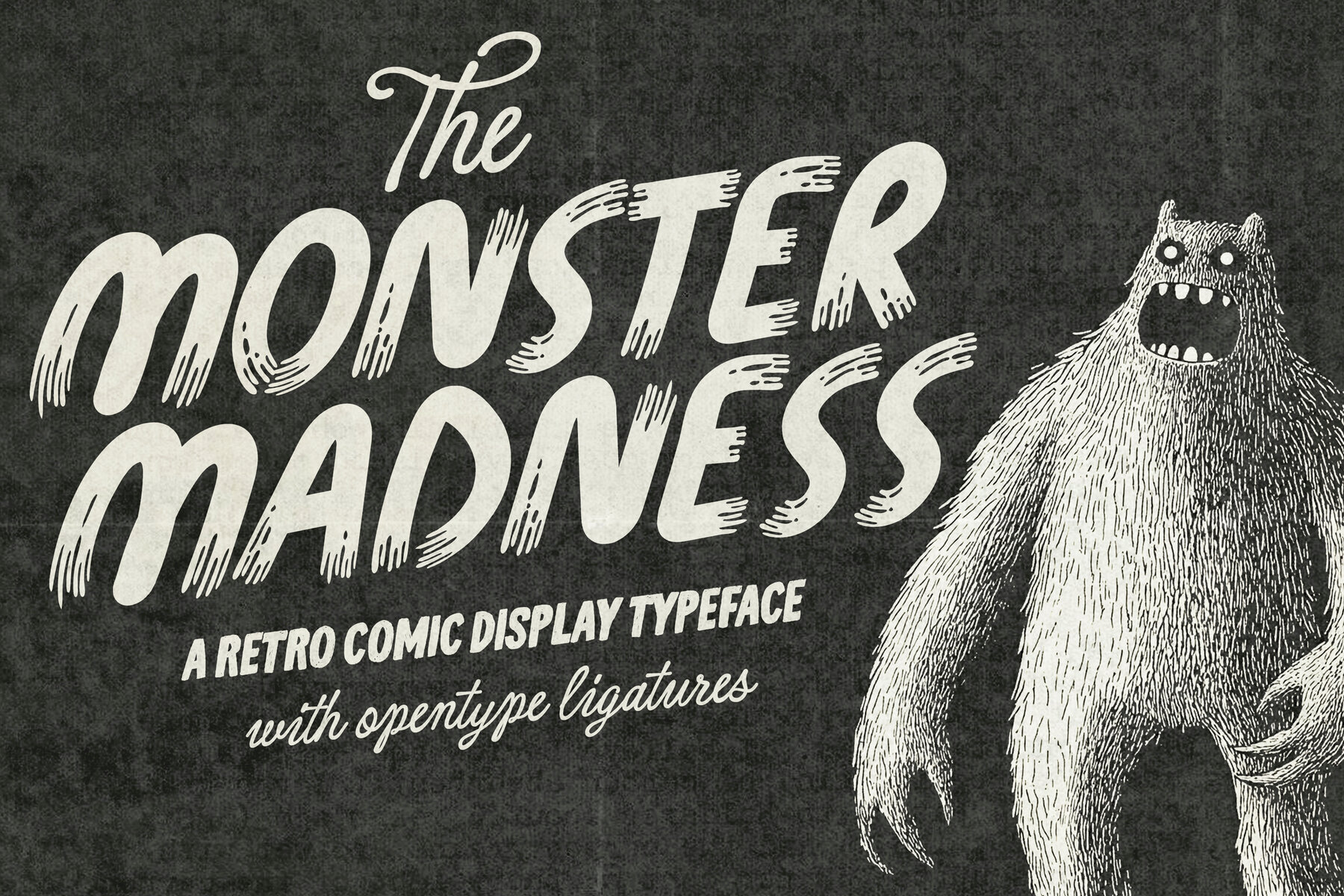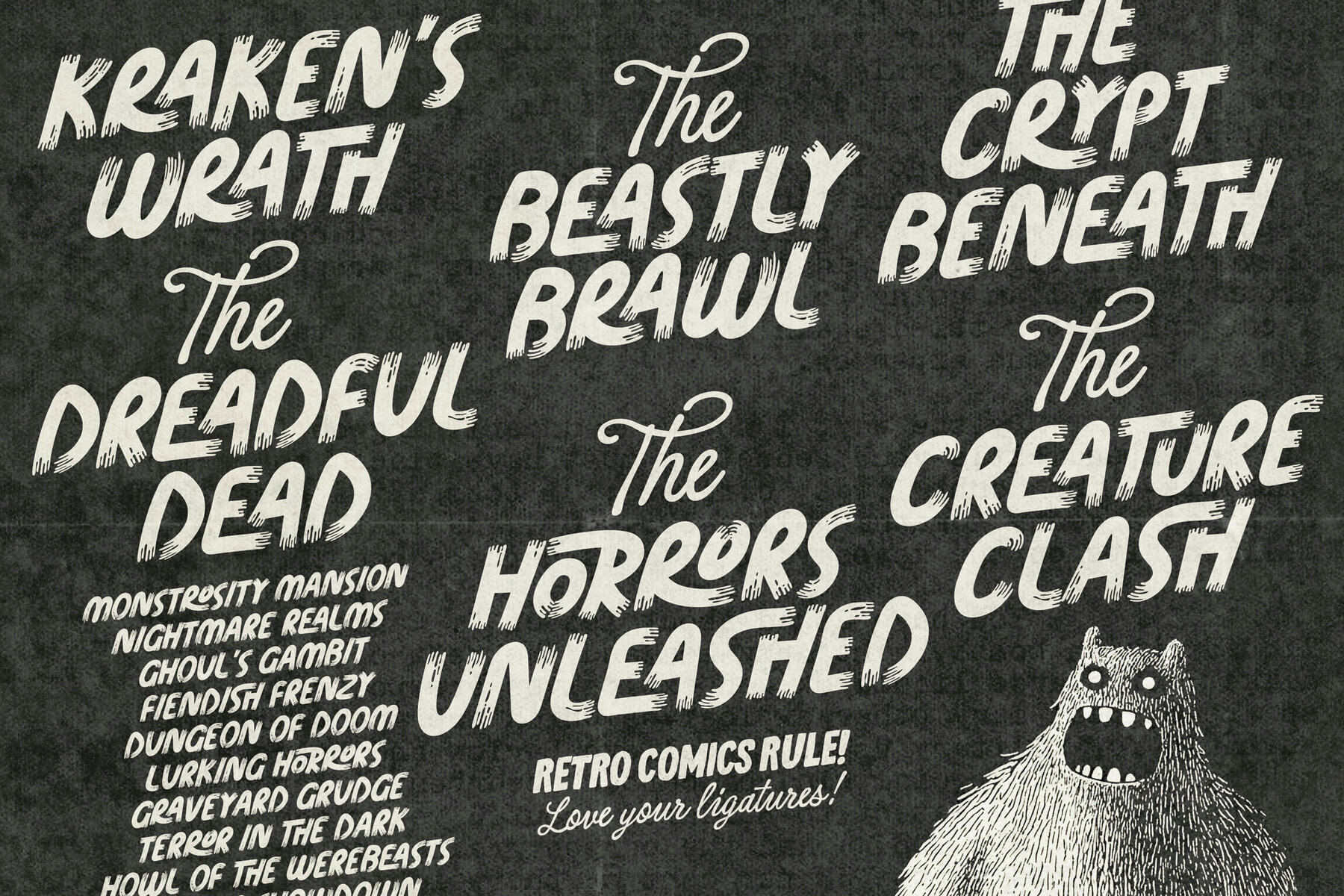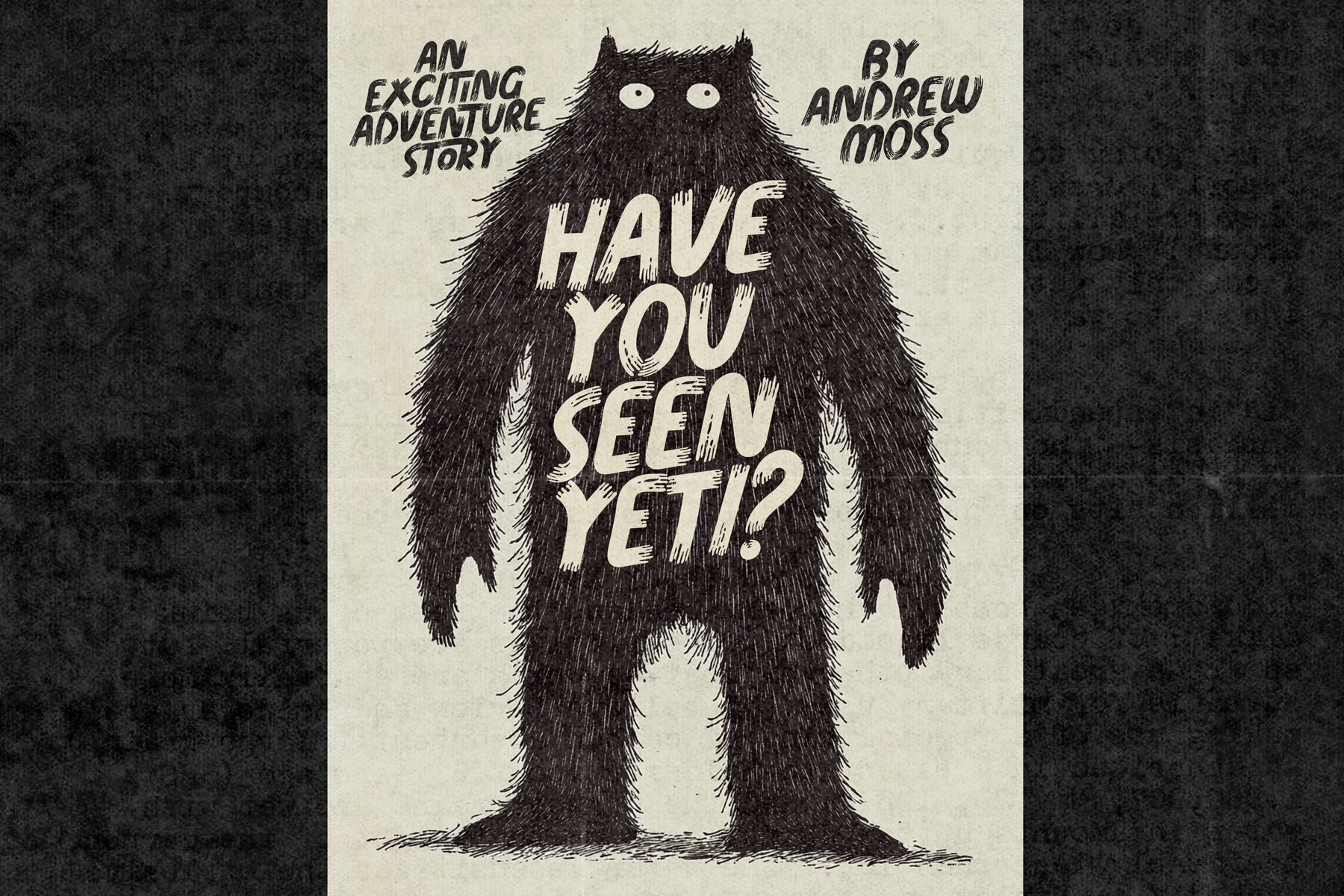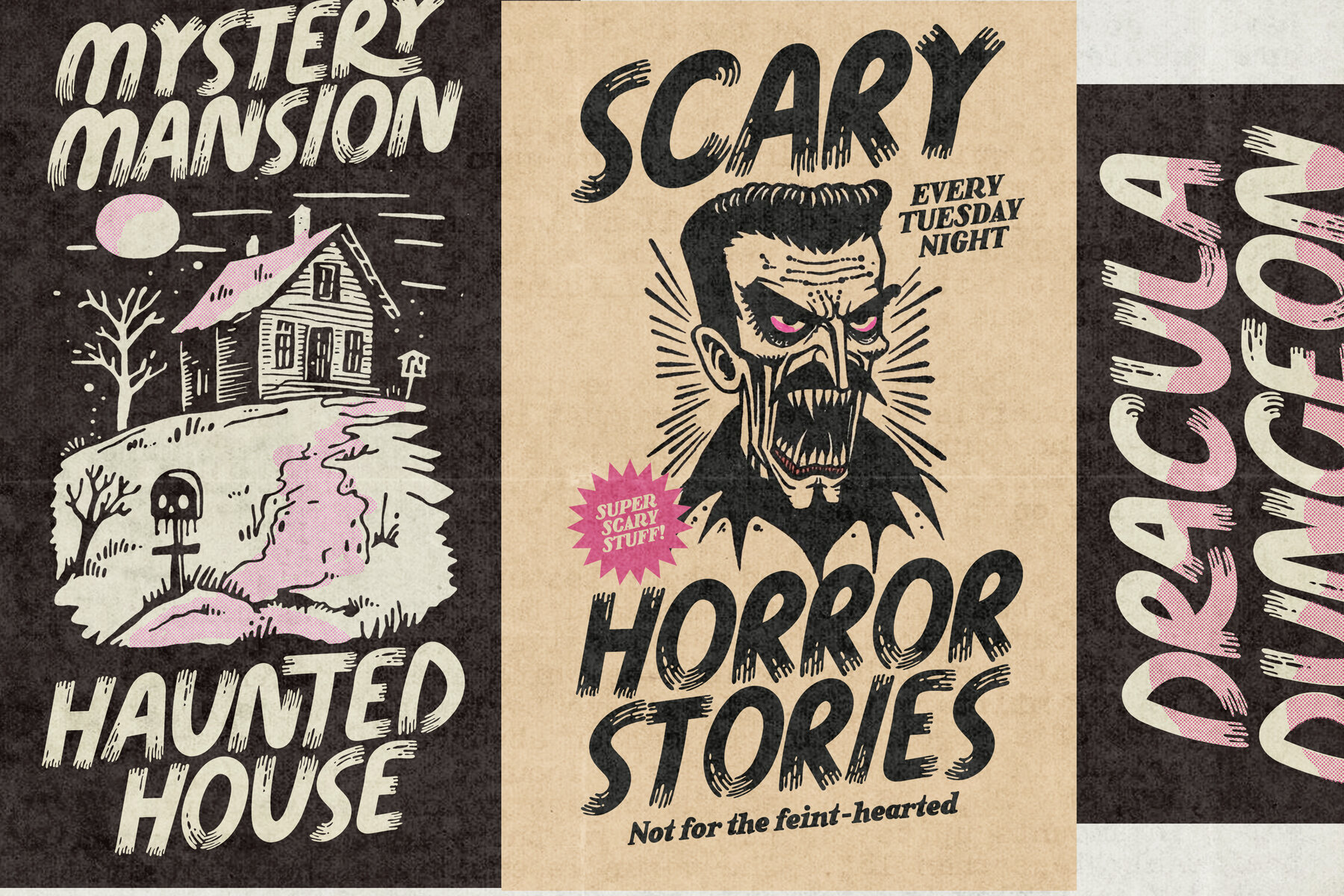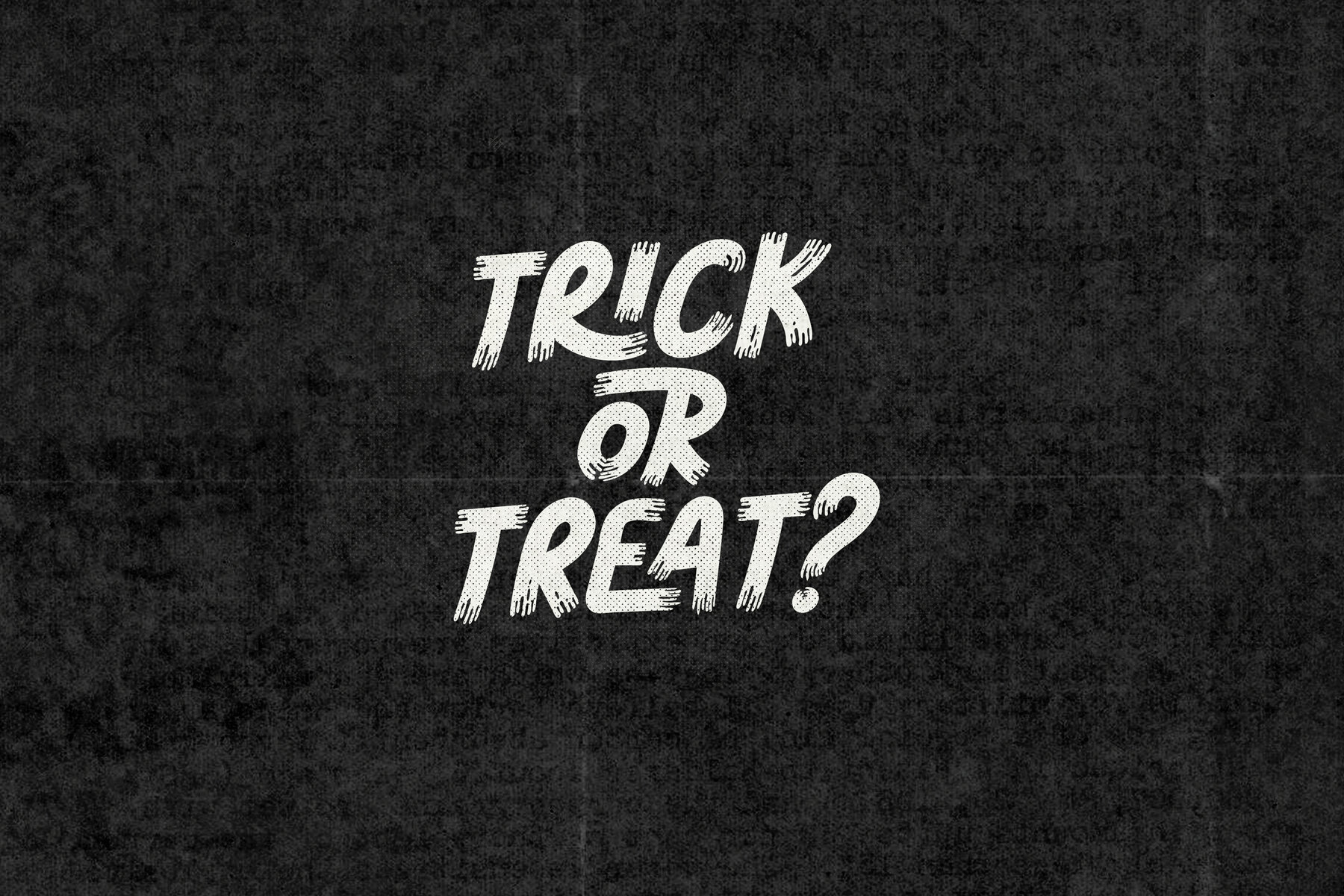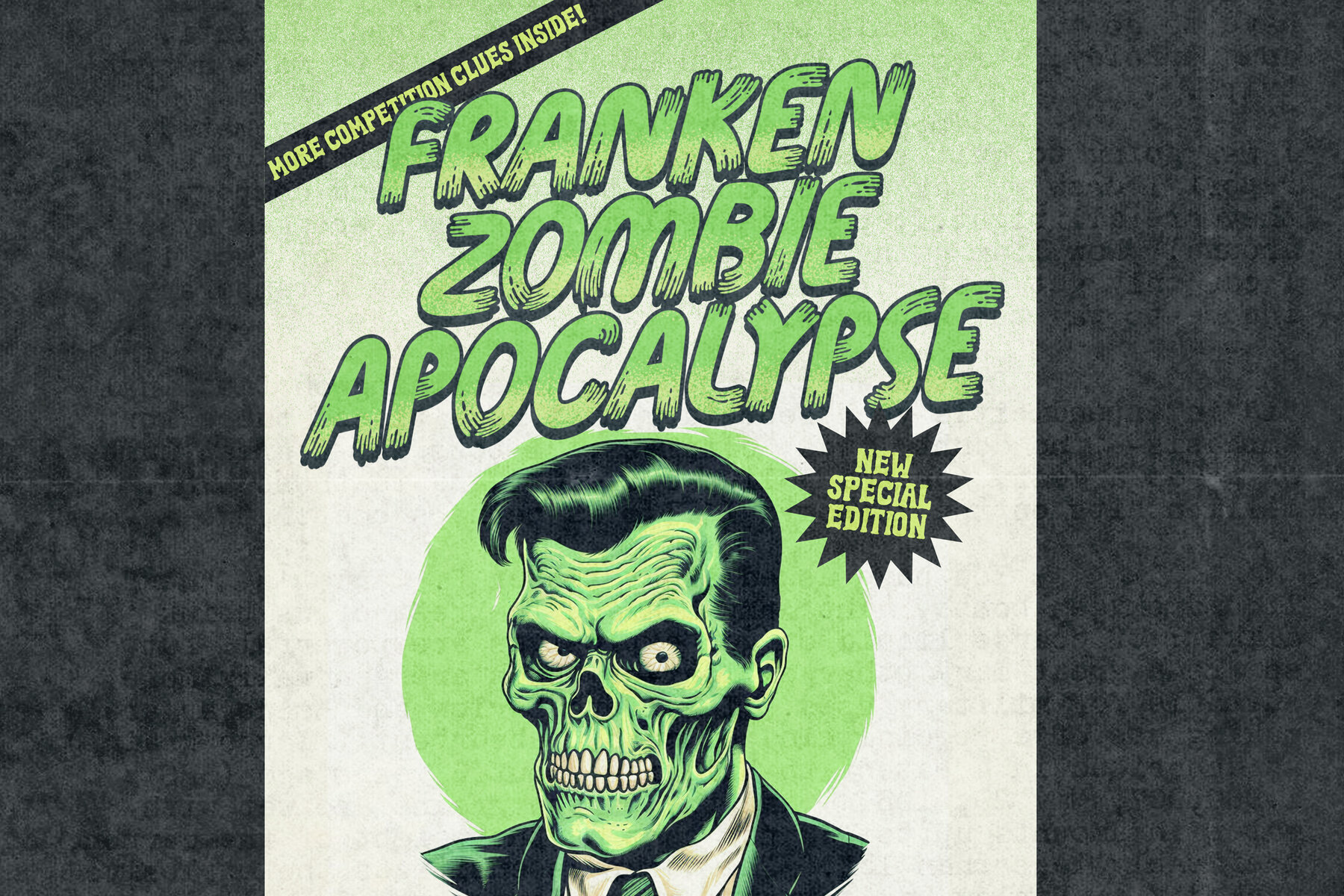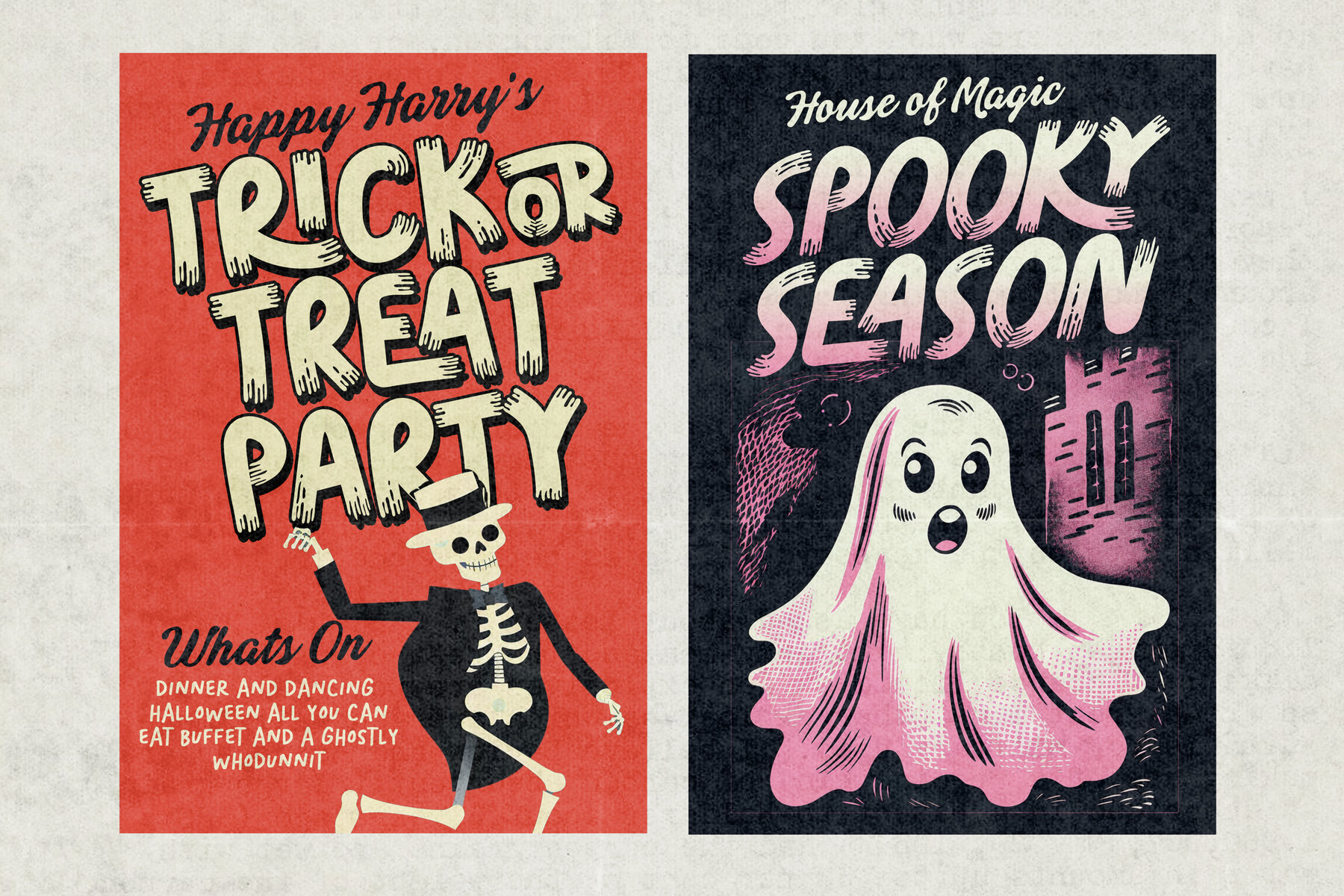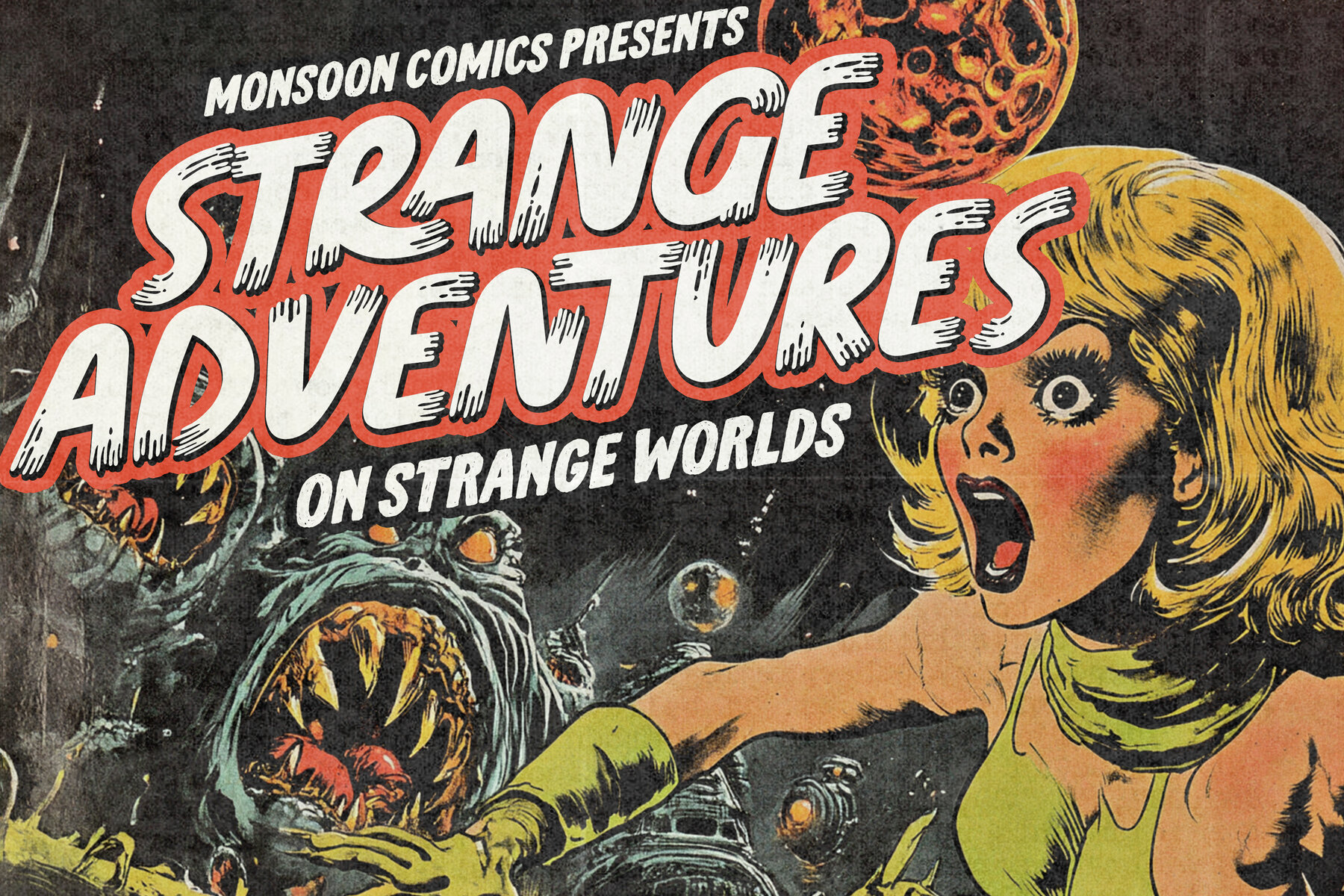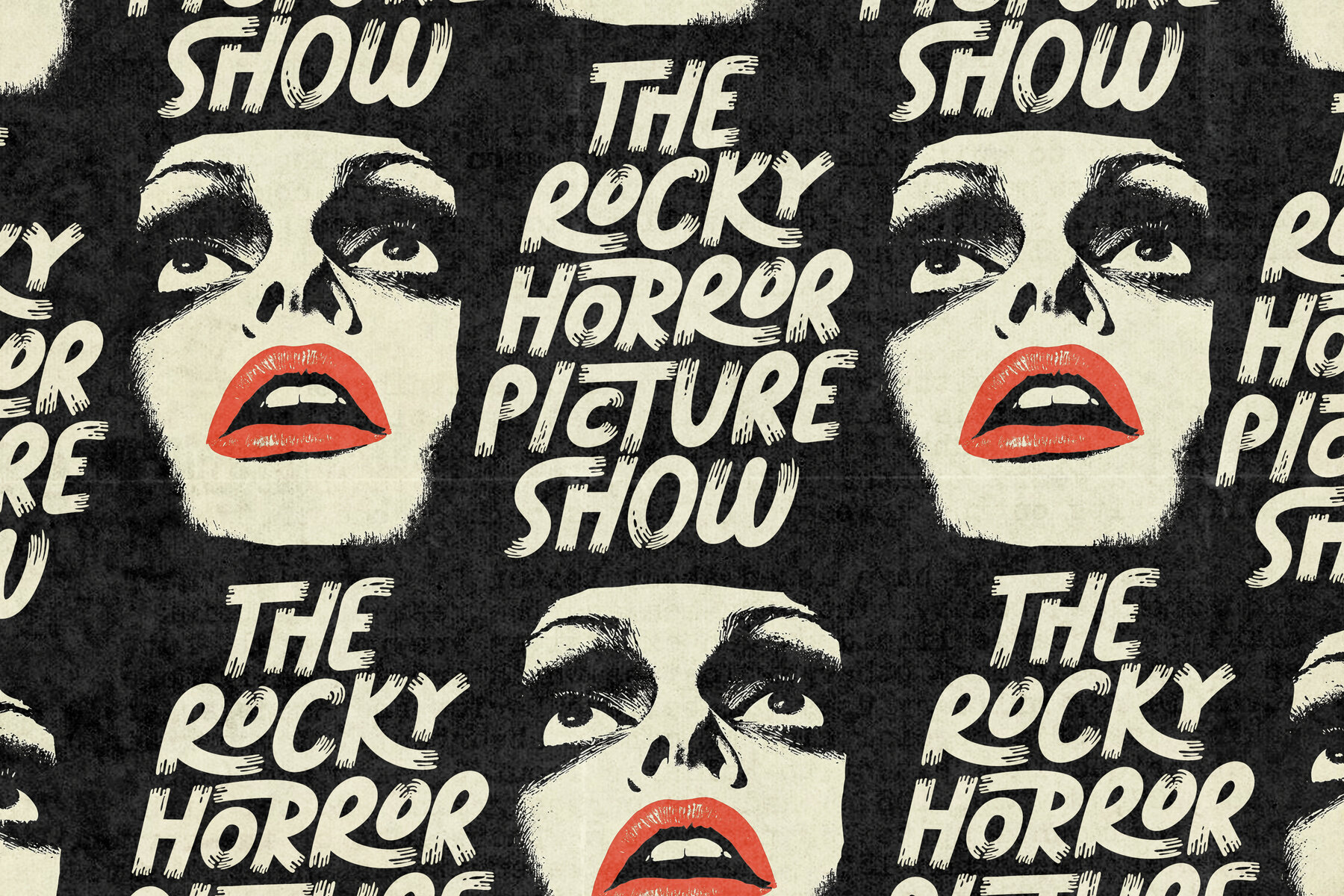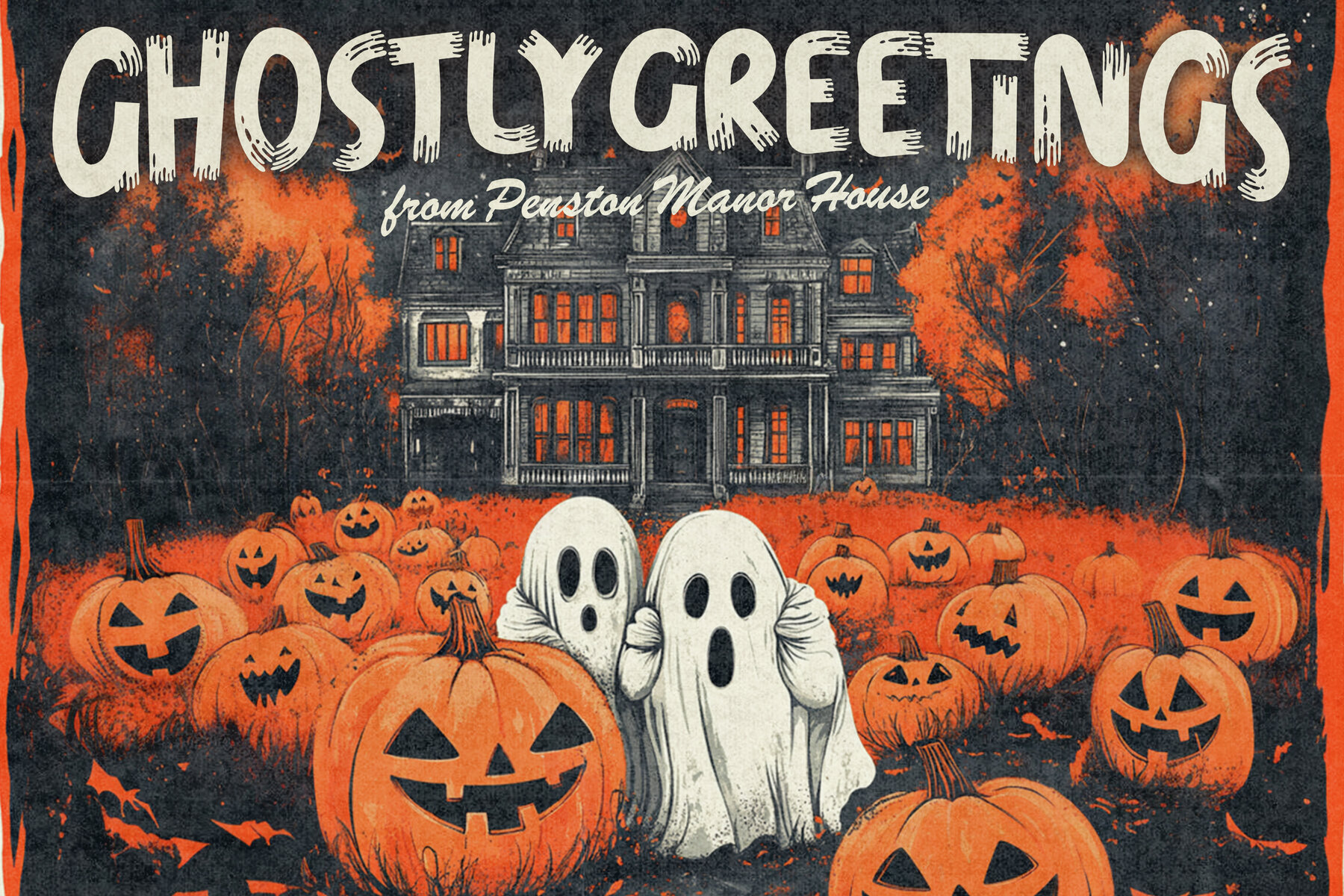
Monster Madness Font
Time for a little fun heading up to spooky season! Say hello to Monster Madness! A playful retro themed comic book style typeface. Don't forget to turn on your Opentype ligatures to get even more awesomeness as you type! Monster Madness comes in three style variants - Upright, Regular and Oblique and is PUA encoded for folks without any fancy Opentype capapble software (you can access the ligatures by copying and pasting them from Fontbook or Charmap) Language support : Cornish, Corsican, Danish, English, Filipino, French, Friulian, Galician, German, Low German, Luo, Luxembourgish, Norwegian Bokmål, Norwegian Nynorsk, Portuguese, Spanish, Swedish, Swiss German. Enjoy!